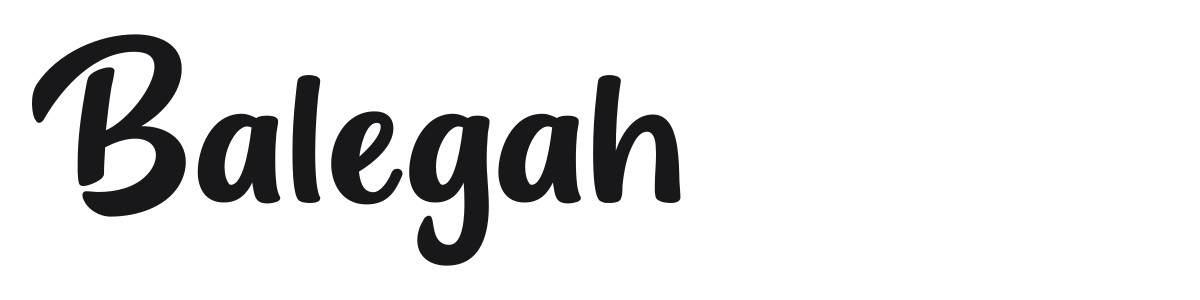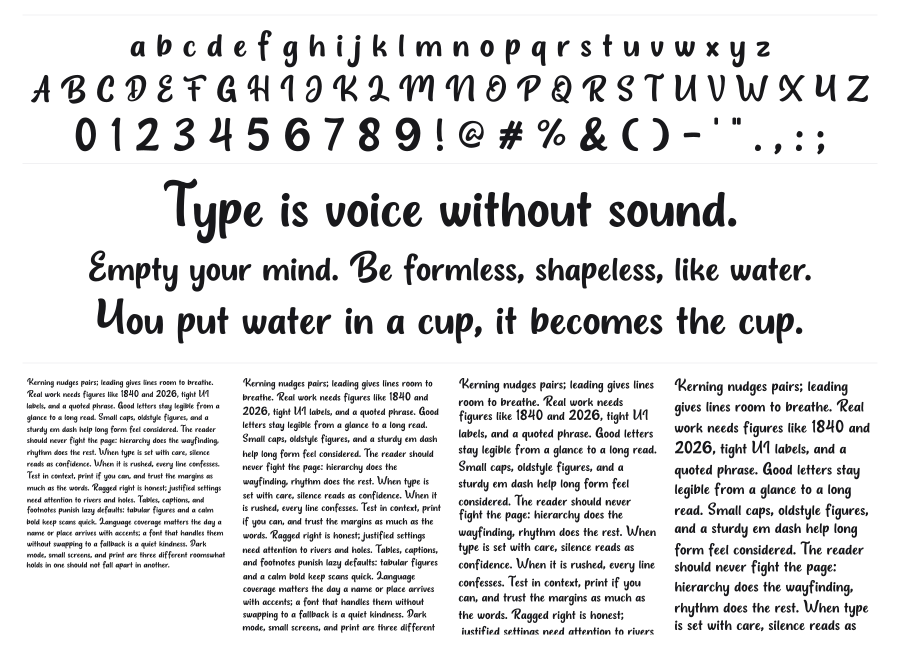
Balegah
Balegah is a bold casual script with a confident italic lean and thick, rounded strokes that give it a hand-lettered warmth. The low stroke contrast and smooth connections between letters create a friendly, accessible energy without feeling childish. It works well at large sizes for logos, packaging, and expressive headlines.